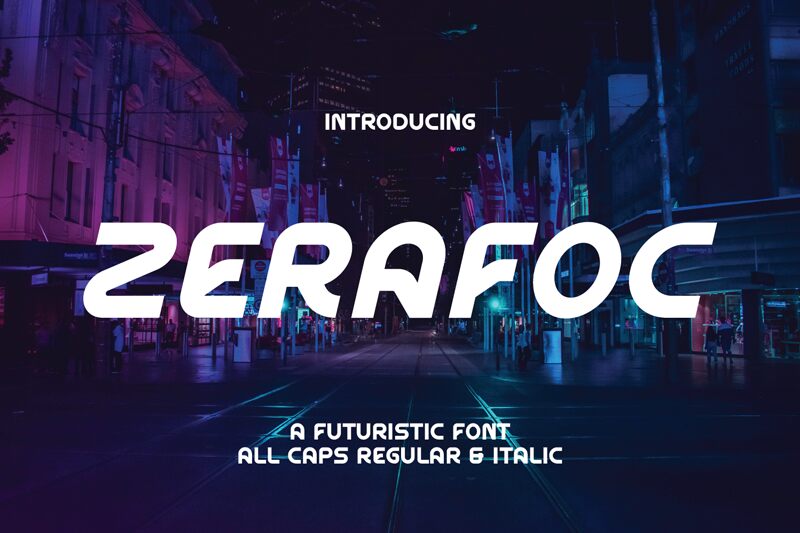
Zerafoc
Zerafoc font by Rvandtype is a captivating display typeface that embodies a futuristic aesthetic. Its bold and innovative design commands attention, making it an excellent choice for projects that desire a modern edge. The striking curvature and distinctive letterforms create a sense of forward-thinking elegance, perfect for tech-themed graphics and sci-fi narratives.
Ideal for branding, advertising, or digital design, Zerafoc provides versatility while maintaining its unique character. This free font is available for download, allowing designers to incorporate its cutting-edge style into various creative endeavors effortlessly. With Zerafoc font's dynamic flair, your projects are poised to make a lasting impact in any setting.